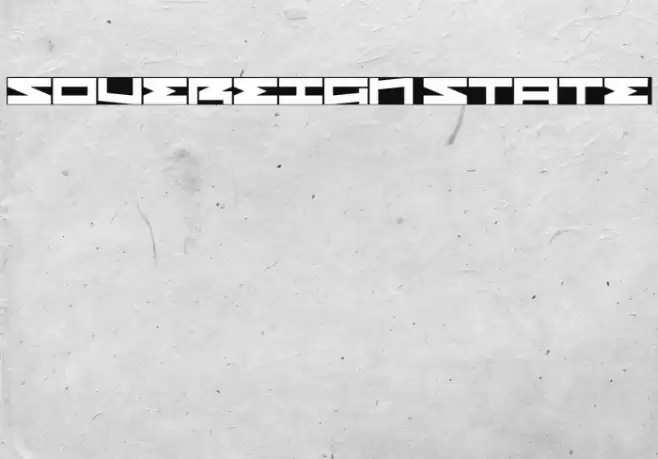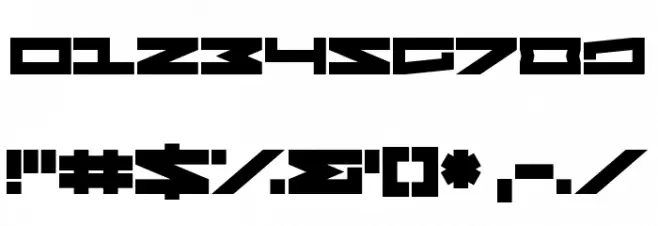
Sovereign State Font
Sovereign State Description
This font features a bold, geometric design with sharp angles and a futuristic aesthetic. The characters are constructed with thick, uniform strokes, creating a sense of strength and modernity. The uppercase letters are particularly striking, with a blocky appearance that emphasizes their angular nature. The lowercase letters maintain this style, ensuring consistency throughout the typeface. Numbers and special characters are equally bold and angular, fitting seamlessly with the overall design. This font is ideal for projects that require a strong, modern look, such as technology branding or sci-fi themed designs.
A bold, geometric font with a futuristic and angular design from Uncategorized fonts.